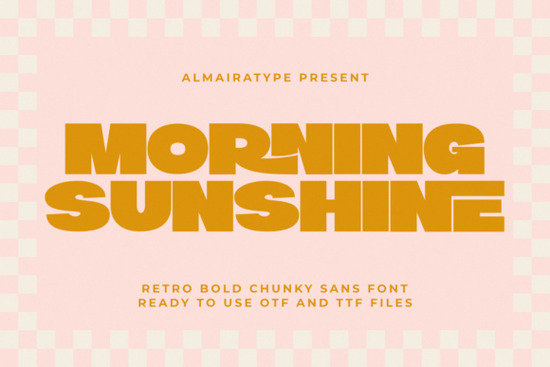
The Morning Sunshine font is a bold, chunky retro sans-serif designed to bring 1970s warmth into modern design work. With thick letterforms and friendly, rounded contours, it's built for high-impact visuals from t-shirt graphics and packaging labels to social media posts and custom craft projects.
If you need a typeface that reads clearly at large sizes and carries a cheerful vintage personality, this one fits that role well. Let's look at what it offers and where it works best.
What kinds of projects does this font work well for?
Morning Sunshine was designed with real commercial use in mind. Its bold, chunky structure makes it a strong fit for:
- T-shirt and apparel design especially summer collections, retro-themed lines, and streetwear branding
- Product packaging labels, boxes, and wrap designs that need a warm, approachable feel
- Social media graphics Instagram posts, story templates, and promotional banners
- Logo and brand identity particularly for brands that want a friendly, nostalgic tone
- Print on Demand products mugs, tote bags, posters, and stickers sold on Etsy or Redbubble
- Digital and printable products planners, invitations, greeting cards, and wall art
The thick, clean letter shapes also make it a good display font for headlines and short text blocks where you want to grab attention without sacrificing readability.
How does it compare to other bold sans-serif fonts?
If you're exploring bold display typefaces, it helps to compare a few options. Here's how Morning Sunshine stacks up against similar fonts:
What makes Morning Sunshine different is its specific blend of retro warmth and clean readability. It doesn't try to be edgy or ultra-modern it leans into that friendly, sunny 70s character while staying versatile enough for current design trends.
Morning Sunshine checks all three boxes. Its thick, bold strokes stay readable even at small sizes, and its cheerful retro style has broad appeal from vintage enthusiasts to modern brands that use one bold accent typeface in their visual identity.
Who should consider using this typeface?
This font is a practical addition for:
- Graphic designers building brand identity packages
- Independent clothing and apparel brand owners
- Craft enthusiasts who use Cricut or Silhouette machines
- POD entrepreneurs selling on Etsy, Redbubble, or Merch by Amazon
- Social media managers looking for bold, readable display fonts
- Small business owners designing their own marketing materials
Quick checklist before you start designing
- ✅ Check the license confirm it covers your intended use (personal, commercial, POD, etc.)